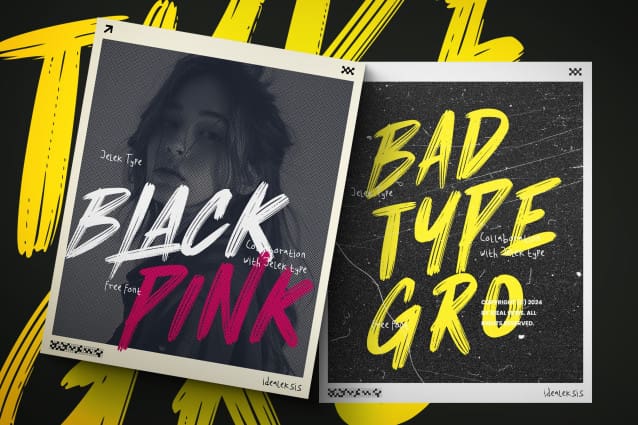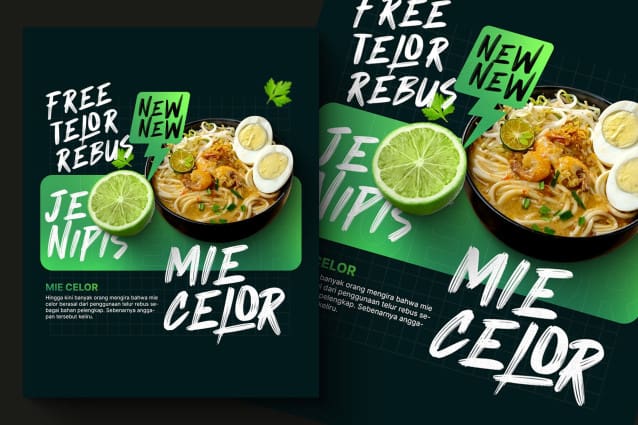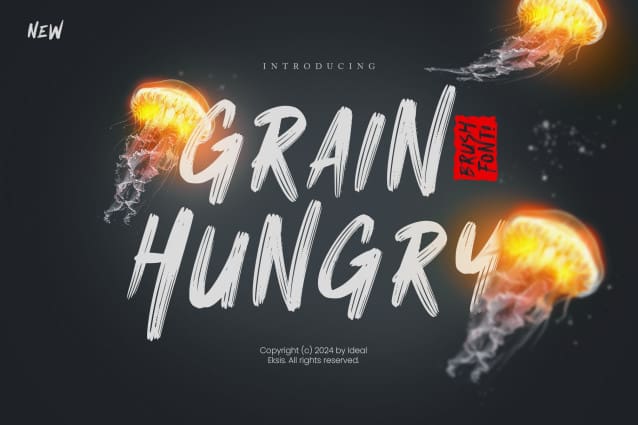
Grain Hungry Font
Grain Hungry Font, inspired by brush lettering-style typography. This font is perfect for a design that makes it more attractive and playful. It was made with a very good level of aesthetics, making this font suitable for a book cover, poster, packaging, merchandise, logotype, and much more.